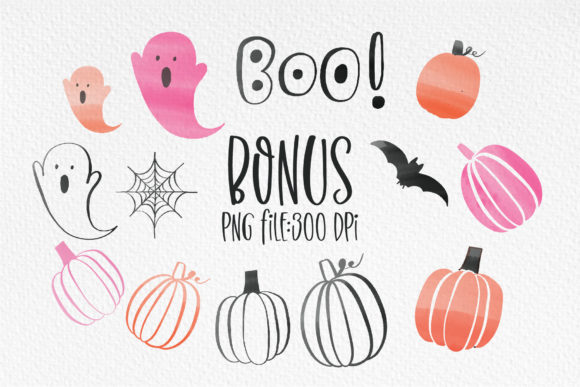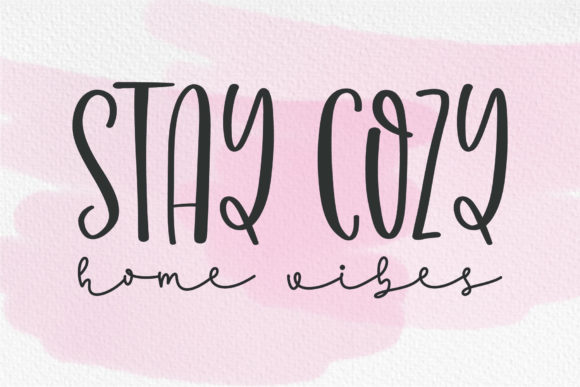
Peace Love Halloween Font
db-ku.com - Script & Handwritten -- Peace Love Halloween is a cute and relaxed trio styled handwritten font. Its natural and unique style makes it suitable for a variety of design ideas. Add it confidently to your projects, and you will love the results.